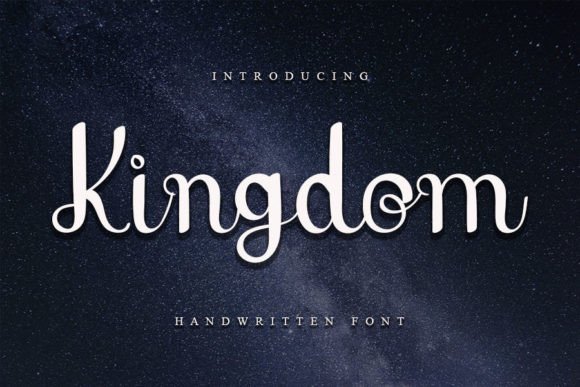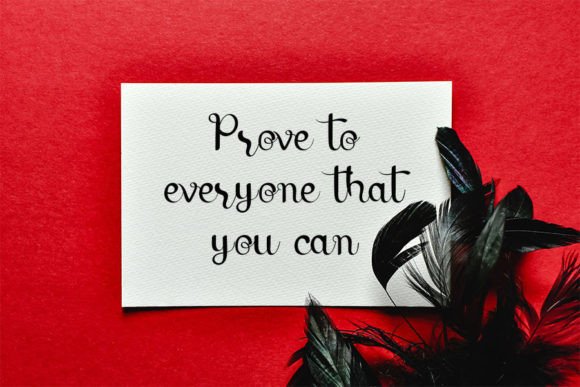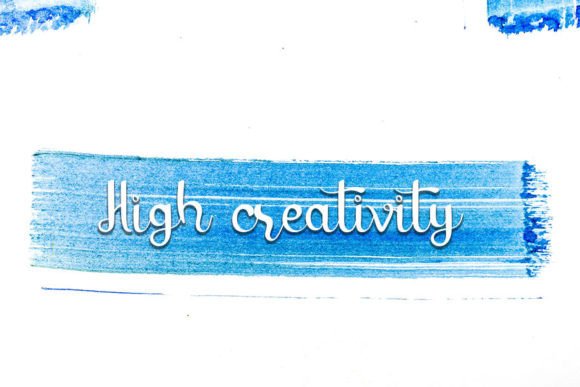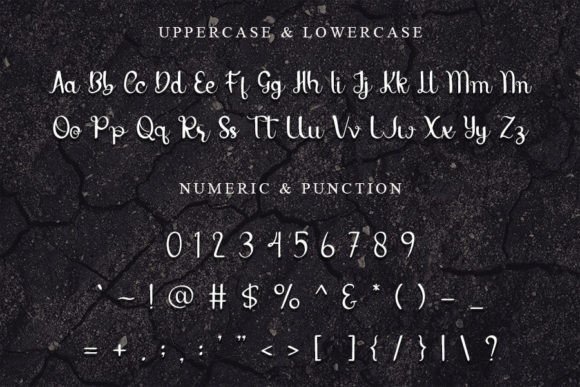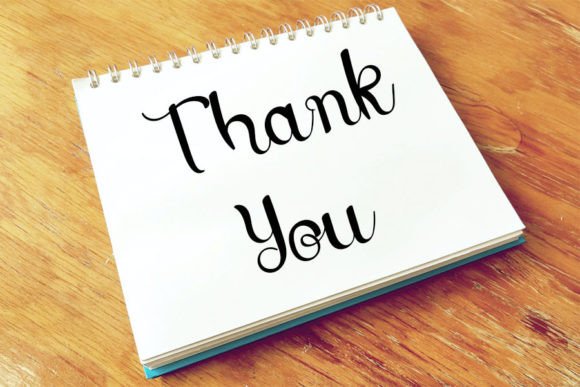
Meet Your New Favorite Font: Kingdom Font
Have you ever been working on a design project, pouring your heart and soul into it, only to feel like something’s missing? That’s when you stumble upon the perfect font – the one that brings your vision to life and makes it truly special. For designers, finding that elusive font can be a game-changer.
Enter Kingdom Font, a friendly handwritten font designed to become a true favorite. With its classy calligraphic influences and contemporary feel, Kingdom Font is the perfect addition to any creative project. Its versatility and charm make it a valuable asset for designers looking to add a personal touch to their work.
Key Features of Kingdom Font
- Font Family: Kingdom Font is a unique, hand-drawn font family designed for use in various applications, including logos, branding, and body text.
- Unique Characteristics: Kingdom Font features a distinctive, hand-drawn style with intricate details and flourishes, making it ideal for use in creative and artistic applications.
Kingdom Font Review
Overall, Kingdom Font is a beautiful and elegant script font that can add a touch of sophistication to your designs. ✨ It has a wide range of uses, from wedding invitations to luxury branding.
- ✨ Elegant and refined design
- ✨ Highly versatile, suitable for various projects
- ✨ Supports multiple languages, including Latin and Cyrillic scripts
- ✨ Comes in multiple weights, from light to bold
- ⚠️ Not ideal for use in small text sizes due to its script nature
- ⚠️ May require additional styling to make it legible in certain contexts
While Kingdom Font is not perfect, it’s a great addition to any designer’s toolkit. With its unique style and versatility, it can add a touch of luxury to your designs. However, be mindful of its limitations, especially when it comes to text sizes and legibility.
Tips for Getting the Most Out of Kingdom Font
- Experiment with different font sizes and styles to achieve the desired effect.
- Use Kingdom Font in conjunction with other design elements to create a cohesive look.
- Consider using Kingdom Font in a bold or italic style to add emphasis to your text.
Common Use Cases for Kingdom Font
Kingdom Font is ideal for use in:
- Formal invitations and announcements.
- Wedding and event branding.
Alternatives to Kingdom Font for Designers
Great Vibes is a beautiful, elegant script font that is perfect for adding a touch of sophistication to your designs. It is ideal for use in wedding invitations, logos, and other high-end branding materials. Compared to Kingdom Font, Great Vibes has a more refined and polished look, making it a great choice for designers who want to create a luxurious feel.
Carolyna Pro is a modern, elegant script font that is designed to be versatile and easy to read. It is perfect for use in branding, packaging, and editorial design. Compared to Kingdom Font, Carolyna Pro has a more modern and sleek look, making it a great choice for designers who want to create a contemporary feel.
Alex Brush is a elegant, handwritten font that is perfect for adding a touch of personality to your designs. It is ideal for use in logos, branding, and packaging. Compared to Kingdom Font, Alex Brush has a more rustic and handcrafted look, making it a great choice for designers who want to create a unique and personal feel.